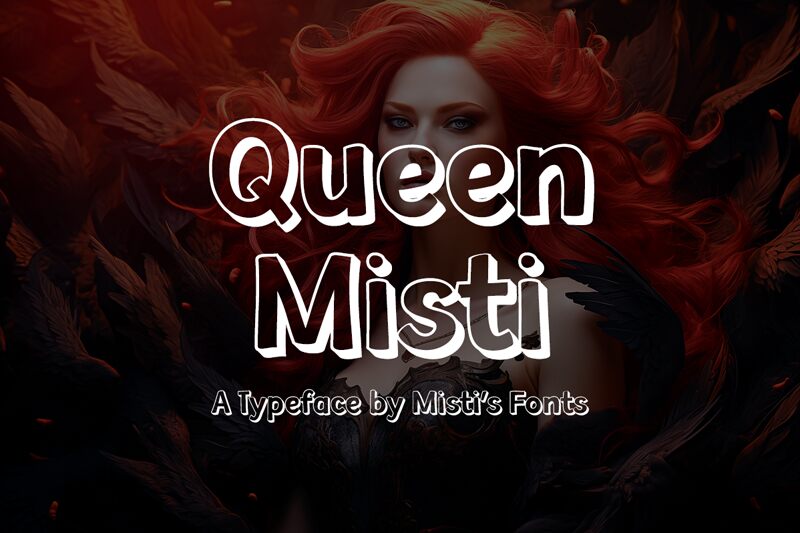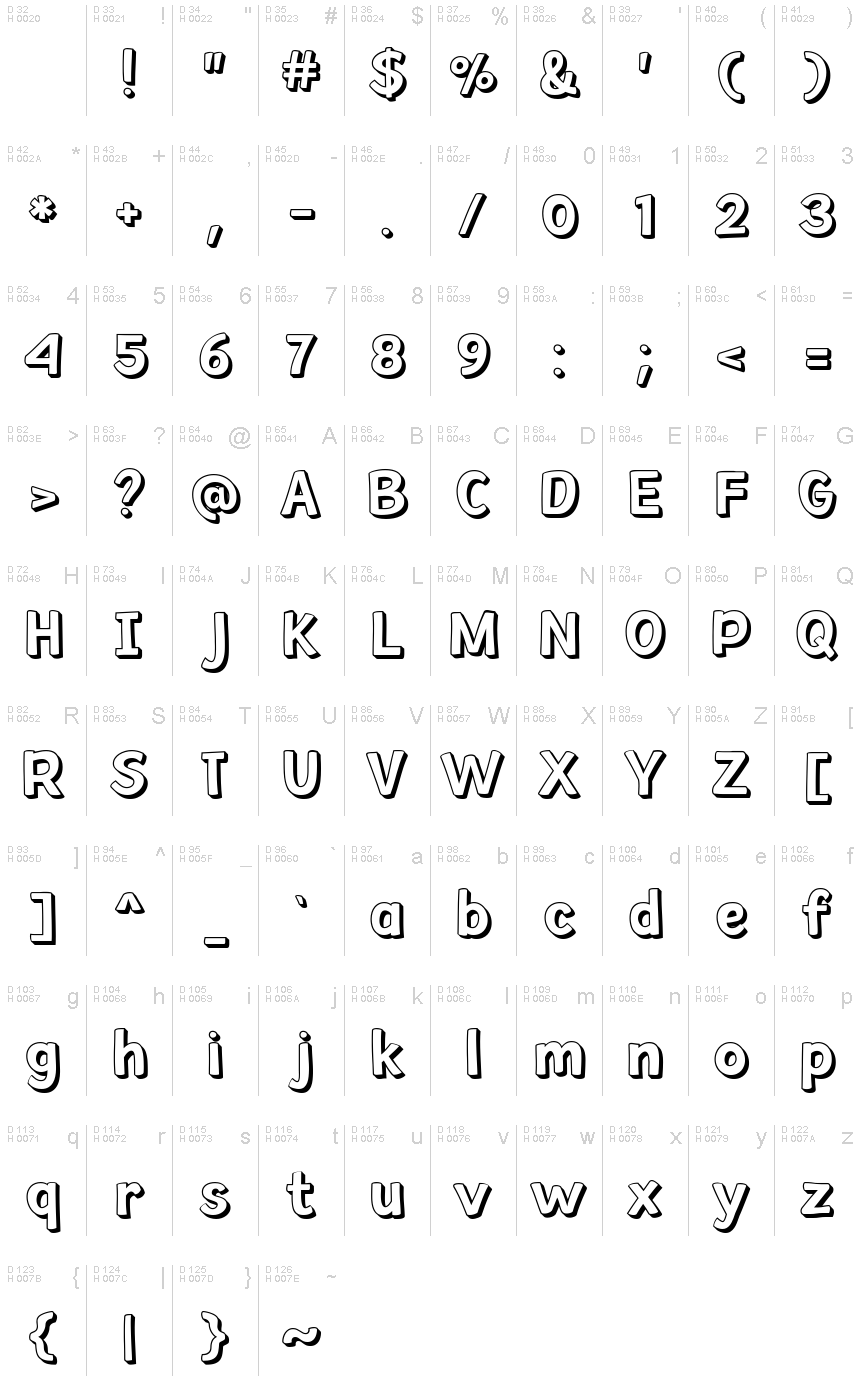
Introducing Queen Misti a captivating and stylish 3D drop shadow font that will elevate your designs to a whole new level. This unique font exudes elegance and sophistication, making it perfect for adding a touch of luxury to your projects. The intricate details of the drop shadow create a sense of depth and dimension, giving your text a stunning visual impact.